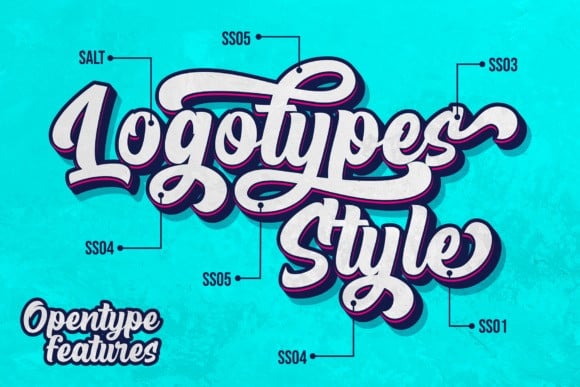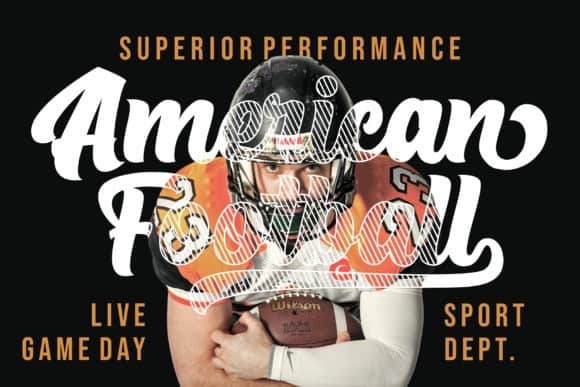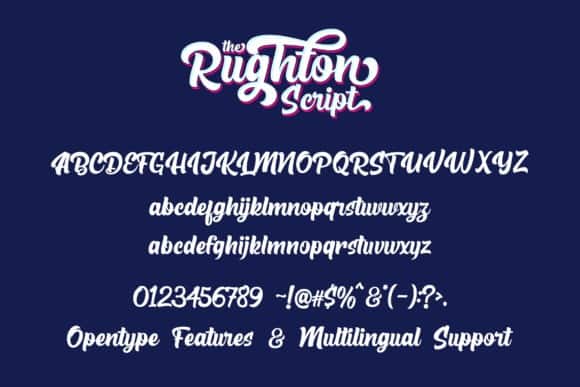
Introducing The Rughton Bold Script Font. It’s a clean bold calligraphy script font. This font is perfect for design purposes such as lovely design for wedding, crafting, posters, business cards, and others. It is design and shared by Figuree Studio. The Rughton Bold Script Font is a strong and bold script font. Use this gorgeous and unique font to bring any DIY project to life! It has a fun and elegant feel and is suitable for logos, branding, quotes, posters, greeting cards, and more.